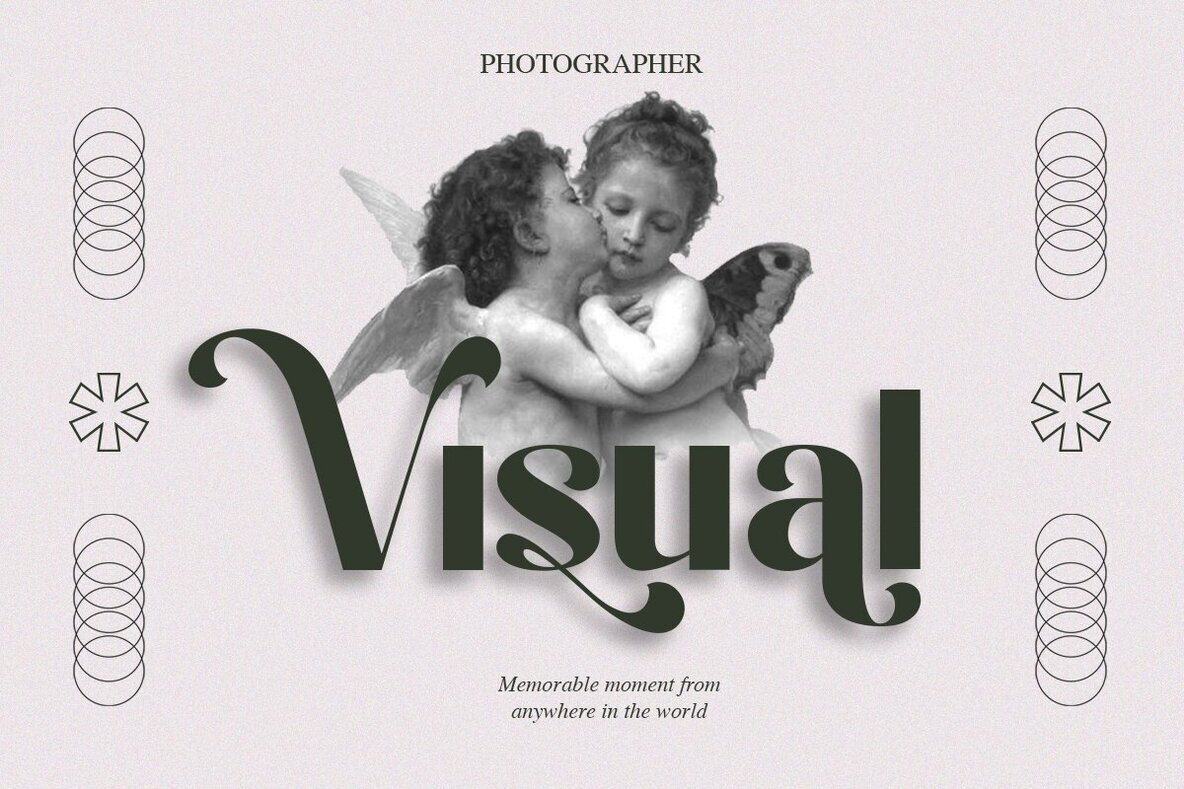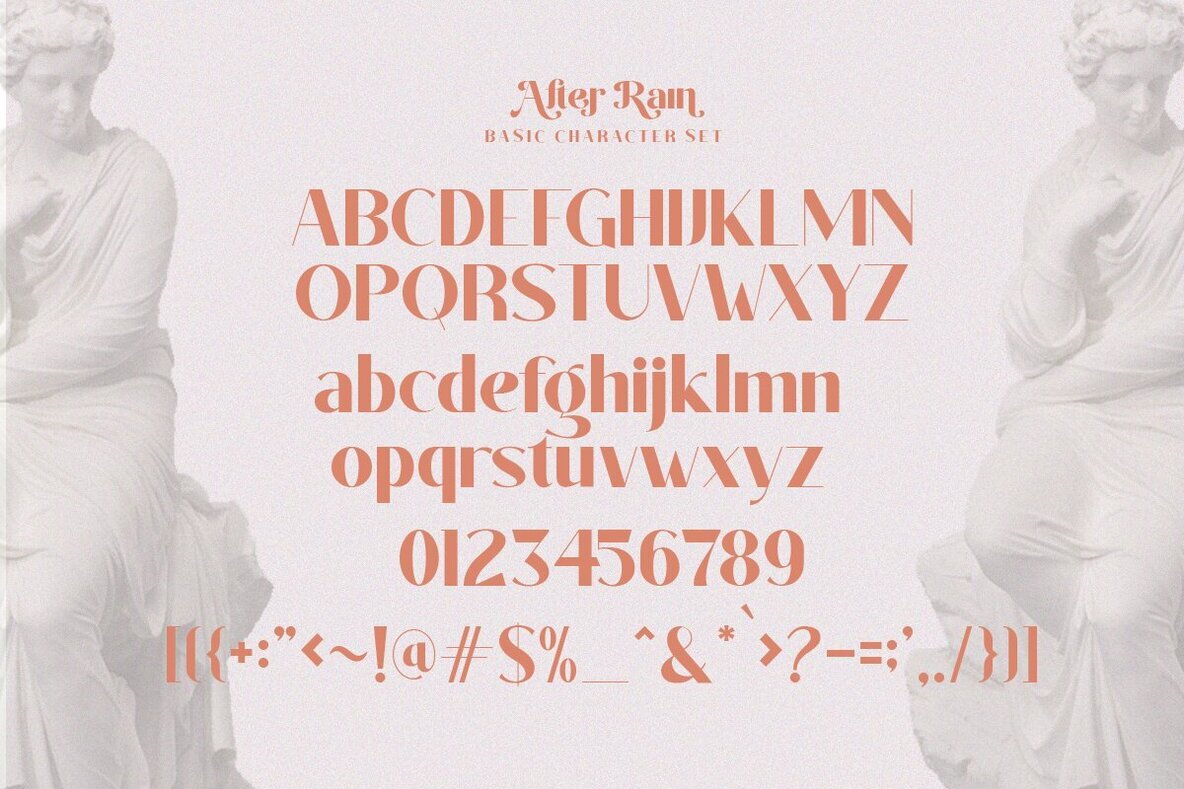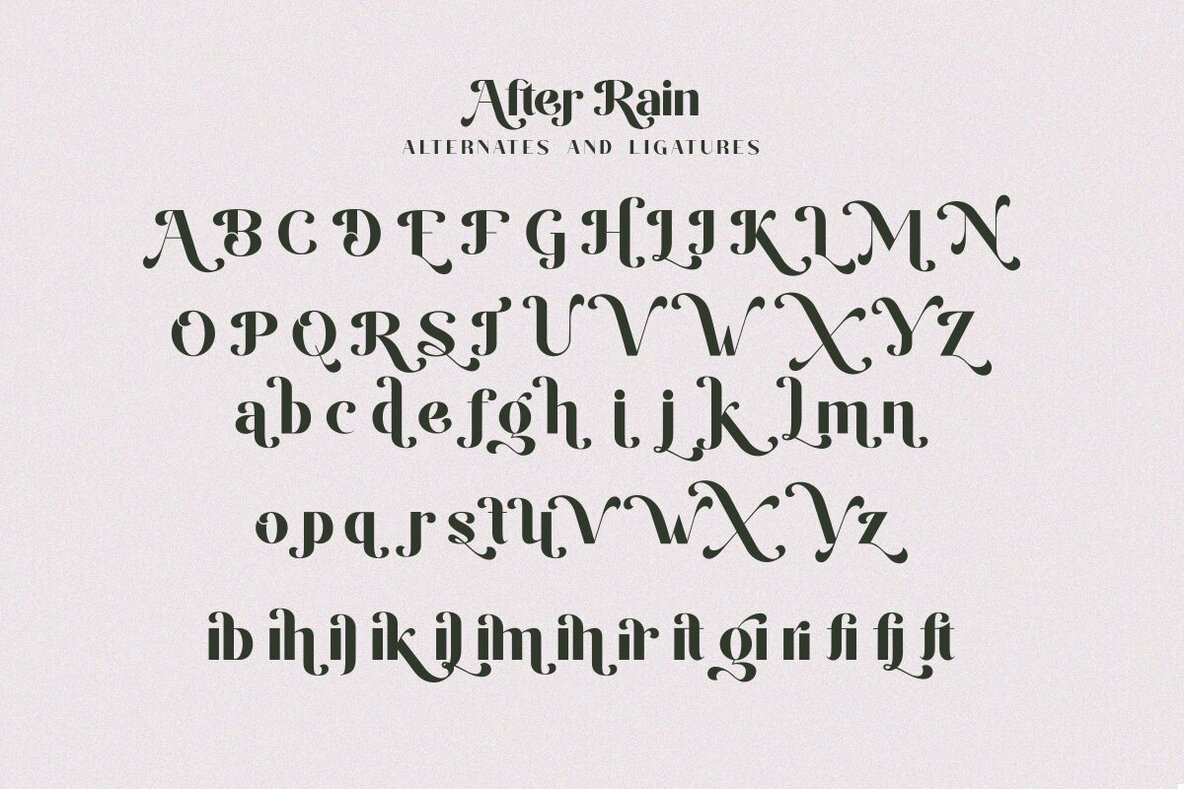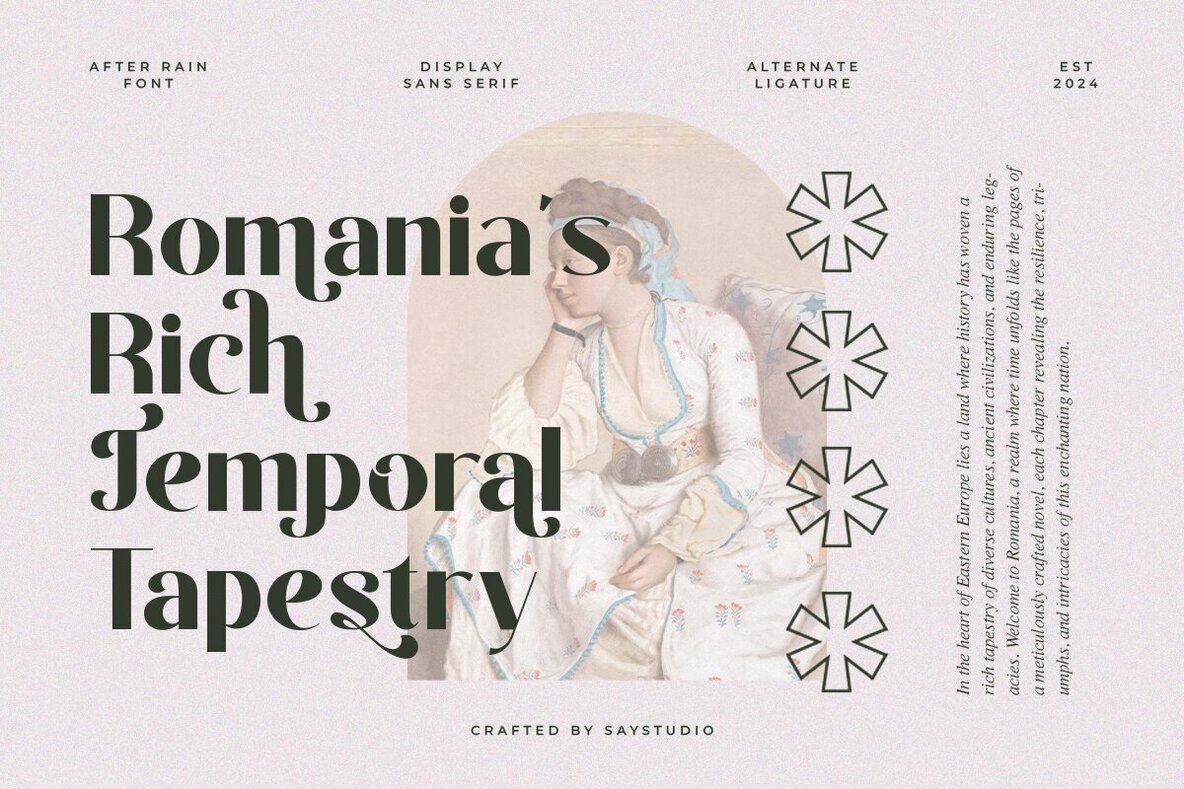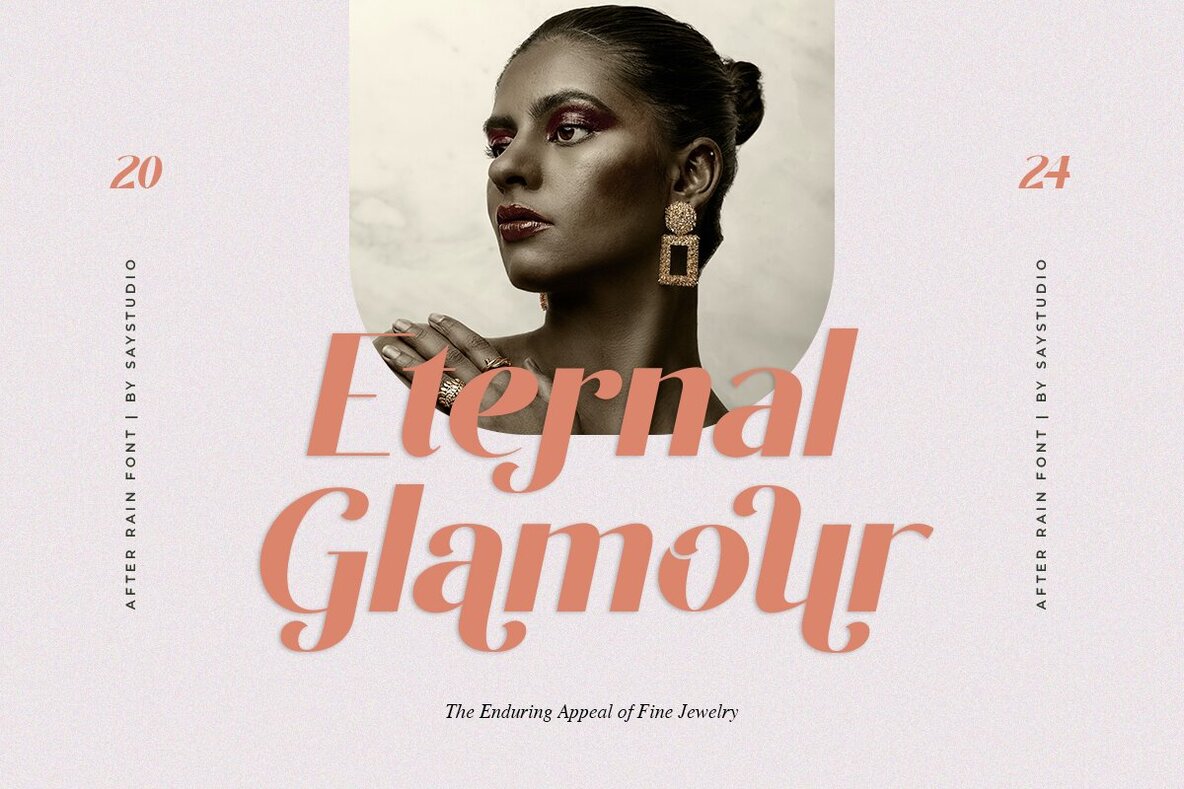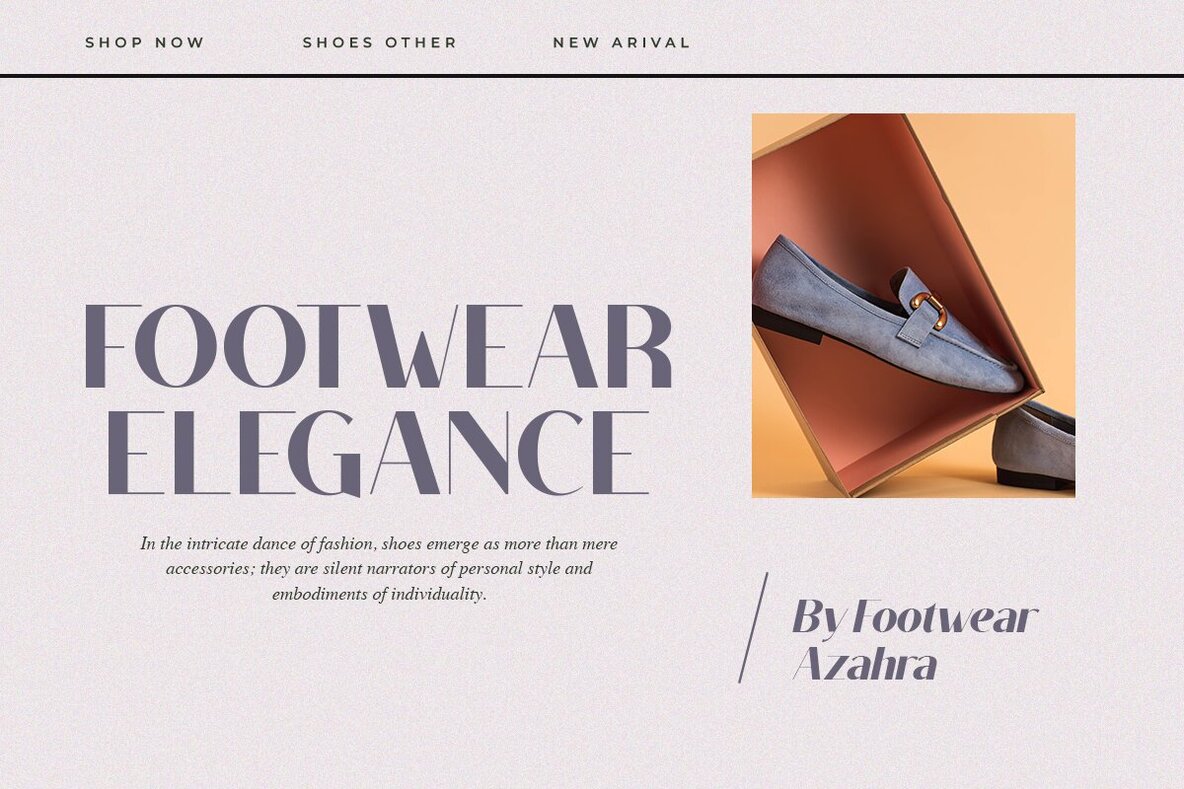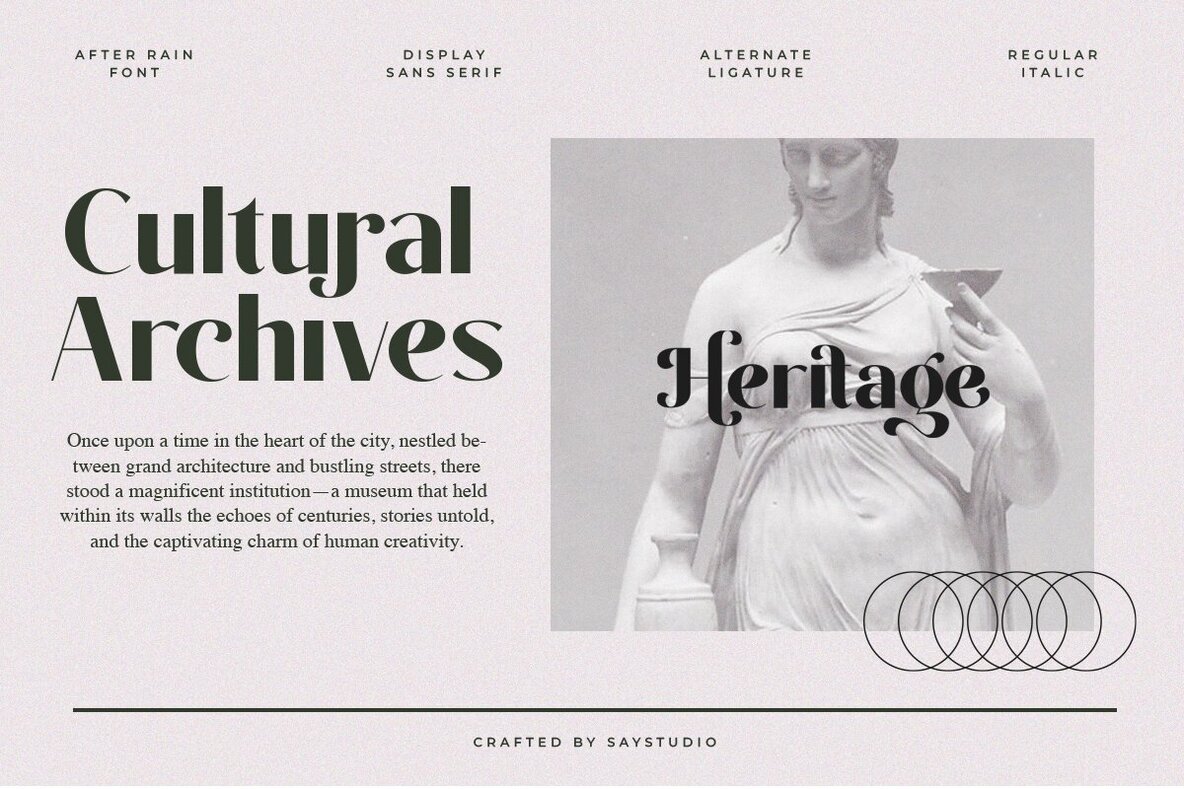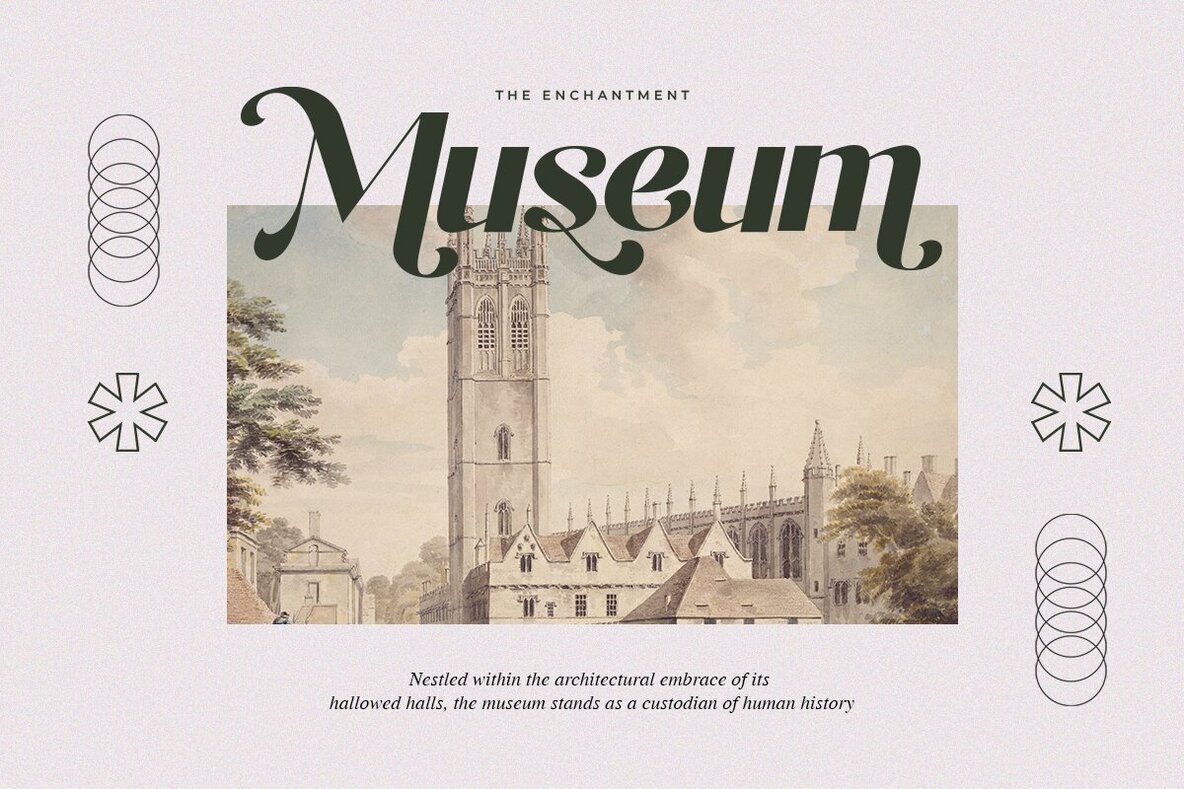
After Rain Font
The After Rain font by Nur Rohman is an embodiment of modern luxury and elegance. With its beautiful ligatures, diverse alternative glyphs, and multilingual support, this typeface caters to both large and small scale designs seamlessly. Suitable for a variety of projects, After Rain is perfect for logotype design, branding, cosmetic brands, wedding invitations, suites and stationery, greeting cards, social media promos, quotes, banners, and more. To access alternate characters, open the glyphs panel: If you have any questions or need assistance, please reach out by sending a message. Your feedback is valued and helps improve our offerings.After Rain: Luxury Sans Serif with Elegant Features